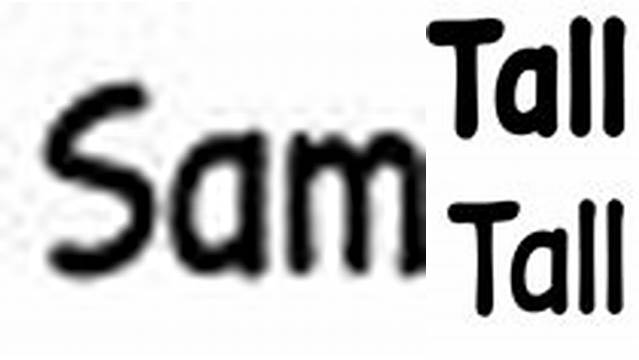
Hey guys! Ever been on the hunt for that perfect font? You know, the one that just screams sophistication and readability? Well, let's dive into the world of Samaritan Tall Lower Font. This font family has gained quite the popularity, and for good reason. Whether you're working on a sleek website design, a professional presentation, or even a personal project that needs a touch of elegance, understanding how to snag this font for free and use it effectively is key. We're going to break down everything you need to know, from the specifics of the font itself to where you can safely download it and how to use it in your projects. So, buckle up, font enthusiasts – we're about to get fontastic!
What is Samaritan Tall Lower Font?
Before we jump into downloading, let's really understand what Samaritan Tall Lower Font is all about. This font stands out due to its unique blend of height and lowercase letterforms. It’s not your typical, run-of-the-mill font; it has character. Its tall ascenders and descenders give it a distinctive vertical emphasis, which can make your text feel more substantial and commanding on the page. The lowercase design adds a touch of approachability and modernity, making it versatile for a range of applications. Think clean, readable, and stylish – that’s Samaritan Tall Lower. When compared to standard fonts, Samaritan Tall Lower Font offers a refreshing visual appeal. It's less generic than Arial or Times New Roman, and more refined than many casual fonts. This makes it an excellent choice when you want your text to convey professionalism with a hint of personality. Now, why would you choose such a font? Well, consider a scenario where you're designing a website for a luxury brand. You want a font that reflects the brand’s sophistication without being overly ornate or difficult to read. Samaritan Tall Lower Font fits the bill perfectly. Its clear letterforms ensure readability, while its unique style adds a touch of class. Or, imagine you’re creating a presentation for a corporate audience. You need a font that commands attention but remains professional. Again, Samaritan Tall Lower Font can be your go-to, making your slides look polished and impactful.
The Appeal of Tall Lowercase Fonts
Tall lowercase fonts, like Samaritan Tall Lower Font, have a special place in the design world. There’s something inherently pleasing about the elongated strokes and unique proportions they offer. But what exactly makes them so appealing? For starters, these fonts often exude a sense of modernity. The extended ascenders and descenders give the text a more dynamic and contemporary feel. This is especially true in a world where clean and minimalist designs are trending. Think about the logos of many tech companies; you'll often see variations of this style because it communicates innovation and forward-thinking. Another key aspect is readability. While it might seem counterintuitive, the distinct shapes of tall lowercase letters can actually make text easier to read, especially in longer blocks. This is because the eye has more unique shapes to latch onto, helping readers distinguish words more quickly. It’s like having a visual roadmap within the text itself. This contrasts with some traditional fonts where characters can appear too similar, leading to visual fatigue. Moreover, tall lowercase fonts offer a fantastic way to create visual hierarchy. By using them in headings or key phrases, you can immediately draw the reader’s eye and emphasize important information. They’re excellent for setting a tone of elegance and sophistication, without resorting to overly decorative or script-like fonts. The tall structure brings a certain gravity to the text, making it feel substantial and trustworthy. In practical terms, think about the design possibilities. Tall lowercase fonts are perfect for branding materials, editorial layouts, and even web design. They can add a touch of class to invitations, business cards, and posters. They work wonders in headlines and subheadings, giving a unique visual rhythm to your content.
Using Samaritan Tall Lower Font in Design Software
Okay, you’ve got Samaritan Tall Lower Font installed – or a similar font that gives you that same tall and sleek vibe – and now it’s time to actually put it to use! Let’s talk about how to use it in some popular design software, so you can really see it shine. Whether you’re a Photoshop pro, an Illustrator aficionado, or a Canva convert, the basic principles are the same, but there are some cool tricks to keep in mind. In Adobe Photoshop, using your new font is a breeze. Open up Photoshop and create a new document or open an existing one. Select the Type Tool (it looks like a “T” in the toolbar), click on your canvas, and start typing. To change the font, look for the Character panel. It’s usually docked on the right side of your screen, but if you don’t see it, you can go to Window > Character to bring it up. In the Character panel, you’ll find a dropdown menu where you can select your font. Scroll through the list until you find Samaritan Tall Lower Font (or your alternative). Select it, and boom! Your text is now rocking your new font. Photoshop also lets you adjust the font size, leading (the space between lines), kerning (the space between letters), and more. Play around with these settings to get the perfect look for your text. In Adobe Illustrator, the process is very similar. Open Illustrator and create or open a document. Select the Type Tool, click on your artboard, and start typing. The Character panel is your best friend here, too. You can find it in the same place as in Photoshop, or go to Window > Type > Character. Select your font from the dropdown menu, and customize the size, leading, and other properties to your heart’s content. Illustrator has some extra-cool typography features, like the ability to create text outlines (which can be great for adding custom effects) and to work with type on a path. If you’re a Canva user, you’re in luck – it’s super easy to use custom fonts in Canva, too. Canva has a huge library of built-in fonts, but if you want to use your own, you can upload them. Go to your Brand Kit (you might need a Canva Pro account for this feature), and you’ll see an option to upload fonts. Once you’ve uploaded Samaritan Tall Lower Font, it’ll be available in the font dropdown menu whenever you’re creating a design. In Canva, you can easily adjust the font size, line height, letter spacing, and text color. Canva’s drag-and-drop interface makes it a cinch to experiment with different looks until you find the perfect fit for your project.
Pairing Samaritan Tall Lower Font with Other Fonts
One of the coolest things about choosing a font like Samaritan Tall Lower Font is how it plays with others. Font pairing is a super important skill in design, guys. It’s like being a mixologist, but instead of cocktails, you’re mixing typefaces to create visual harmony. A great font pairing can elevate your design from “meh” to “magnificent,” while a bad pairing can make your project look disjointed and unprofessional. So, let’s dive into some winning combinations for Samaritan Tall Lower Font. First off, consider the principle of contrast. A general rule of thumb is to pair a display font (like Samaritan Tall Lower Font, which has a unique personality) with a more neutral and readable body font. Think of it as the main character and the supporting cast. The main character needs to shine, but the supporting characters need to be reliable and easy to follow. A classic pairing is Samaritan Tall Lower Font for headings and subheadings, with a clean sans-serif font like Open Sans or Lato for body text. These fonts are incredibly versatile and readable, and they provide a nice contrast to the taller, more distinctive letterforms of Samaritan Tall Lower Font. They’re like the reliable friend who always has your back. Another fantastic option is to pair Samaritan Tall Lower Font with a serif font for body text. This can create a more sophisticated and elegant look. Think of a font like Lora or Merriweather. These serif fonts have a classic, yet contemporary feel that works beautifully with the modern vibe of Samaritan Tall Lower Font. It’s a bit like pairing a crisp white shirt with a tailored blazer – timeless and stylish. Roboto is another font that works wonders with Samaritan Tall Lower Font. It's a sans-serif font that's clean, modern, and incredibly versatile. It's used all over the web, and for good reason. It's highly readable and complements Samaritan Tall Lower Font without overpowering it. When you're pairing fonts, it's also important to consider weight and style. If you’re using a bold version of Samaritan Tall Lower Font for your headings, you might want to choose a lighter weight for your body text to create a visual balance. Similarly, if Samaritan Tall Lower Font is the star of the show, make sure your secondary font doesn't compete for attention. Subtlety is key.
Best Uses for Samaritan Tall Lower Font
So, you’ve got the font, you know how to install it, and you’ve even got some killer font pairing ideas. Now, let’s talk about where Samaritan Tall Lower Font (or your similar tall lowercase font) really shines. This font isn't a one-size-fits-all solution, but when used in the right context, it can add a serious touch of pizzazz to your projects. One of the best uses for Samaritan Tall Lower Font is in branding. If you’re working on a logo or brand identity for a company that wants to project a modern, sophisticated image, this font can be a game-changer. Its tall, elegant letterforms give a sense of authority and style, without feeling stuffy or outdated. Imagine a tech startup or a high-end fashion brand using Samaritan Tall Lower Font in their logo – it just works. Another area where Samaritan Tall Lower Font excels is in web design. It’s fantastic for headings and subheadings, where its unique style can really grab attention. Using it sparingly for key elements on your website can create a strong visual hierarchy and make your content more engaging. Plus, its clean lines ensure that it’s readable on screens of all sizes, which is crucial for a good user experience. Just remember not to overdo it; pairing it with a more readable body font, as we discussed, is the way to go. Editorial design is another natural habitat for Samaritan Tall Lower Font. Think magazine layouts, brochures, and even book covers. Its distinctive style can add a touch of class to your headlines, making your publications look more polished and professional. You can also use it for pull quotes or other highlighted text to create visual interest and draw the reader’s eye. Presentation design is another place where Samaritan Tall Lower Font can shine. It’s a great choice for slide titles and section headings, helping to keep your presentation looking clean and modern. Its readability makes it easy for your audience to follow along, and its unique style will help your presentation stand out from the crowd. Finally, don’t forget about personal projects! Samaritan Tall Lower Font is perfect for things like invitations, greeting cards, and even personal branding materials like business cards or resumes. It’s a fantastic way to add a touch of personality and style to your communications.
Common Mistakes to Avoid When Using This Font
Okay, so you’re armed with the knowledge of how to find, download, install, and use Samaritan Tall Lower Font. Awesome! But let’s pump the brakes for a sec and talk about some common pitfalls to avoid. Because even the coolest fonts can look… well, not so cool if they’re used incorrectly. One of the biggest mistakes people make is overusing the font. Remember, Samaritan Tall Lower Font has a strong personality. It’s not a wallflower; it wants to be noticed. But that also means it can quickly become overwhelming if you plaster it everywhere. Think of it like adding salt to a dish – a little bit enhances the flavor, but too much ruins the whole thing. A good rule of thumb is to use Samaritan Tall Lower Font sparingly, focusing on headings, subheadings, or key phrases. Reserve it for the elements you really want to stand out, and use a more neutral font for body text, as we discussed in the font pairing section. Another common mistake is ignoring readability. Samaritan Tall Lower Font, with its tall letterforms, is generally quite readable, but it can become tricky in very small sizes or in long blocks of text. If you’re using it for body text, make sure your font size is large enough and your line spacing is generous. Squint at your design – can you still read it easily? If not, you might need to make some adjustments. Not paying attention to font pairing is another major no-no. We’ve already talked about how important it is to choose a font that complements Samaritan Tall Lower Font, rather than clashing with it. Avoid pairing it with fonts that are too similar in style, or with fonts that are overly decorative or difficult to read. The goal is to create a harmonious visual balance, not a chaotic font frenzy. Ignoring the context of your design is another pitfall. Samaritan Tall Lower Font might be perfect for a modern tech company’s website, but it might not be the best choice for a traditional law firm’s letterhead. Think about the message you’re trying to convey and the audience you’re trying to reach. Does the font fit the overall tone and style of your project? Finally, forgetting about licensing is a mistake you absolutely want to avoid. We talked about the importance of downloading fonts from reputable sources and checking the license terms. Using a font in a way that violates its license can lead to legal trouble, which is definitely not something you want. So, always double-check the license before using a font in a commercial project.
The Psychology of Fonts: How Typefaces Affect Perception
Okay, let's get a little deep for a second and talk about something super fascinating: the psychology of fonts. We often think of fonts as just a way to make words appear on a page, but they're so much more than that. Typefaces have the power to evoke emotions, create associations, and even influence our perceptions. Think about it: the tall, sleek letterforms of Samaritan Tall Lower Font convey a different feeling than a whimsical, handwritten script, right? That's because fonts have their own unique personalities, and they communicate these personalities to us on a subconscious level. So, how exactly do fonts affect our perception? Well, it all comes down to visual cues. Just like the way we interpret body language or facial expressions, we interpret fonts based on their visual characteristics. A font with sharp, angular lines might convey a sense of strength and modernity, while a font with rounded, flowing lines might feel more friendly and approachable. Serif fonts, with their little